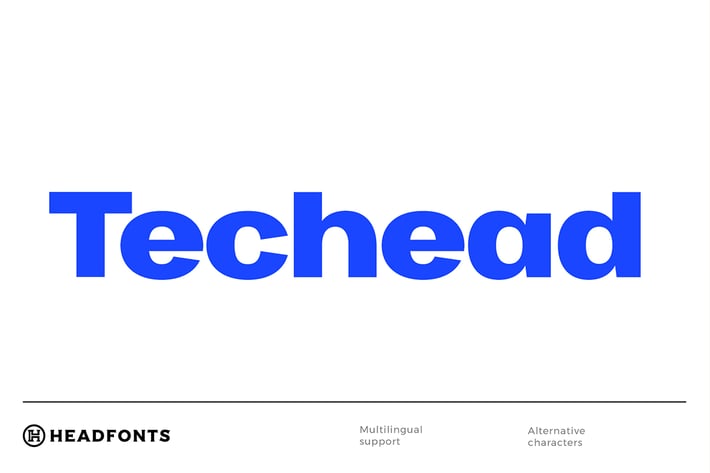
Techead Typeface|Font For Technology Startup
Introducing TECHEAD, an innovative sans serif font family. Techead is legible, objective and authoritative, specially designed for technology start-ups focused for developing sustainable, eco-friendly and innovative businesses. Techead has a neat, clean appearance with simple, smooth curves and a modern look. Despite its simplistic features Techead still has a strong personality and distinctive characteristics. With a high X height, large counters, high contrast between vertical and horizontal lines and narrow strokes, this typeface is powerful whether paired with a contrasting font or on its own. Techead typeface has five weights, from Thin to Black, uppercase, lowercase and also lower uppercase characters accompanied by alternative characters and numerals. Each font of Techead`s family has 386 glyphs and extensive Latin script language support.
Techead can be used regardless of its size and provides users with a wide range of options. Teachead`s Thin weight is suitable for contrasting texts, Teached Light is best used for texts and articles while Techead Regular, Bold and Black are more suitable for titles, logos or posters.
This distinct, versatile font family will be your helping hand when creating minimal and straightforward designs, proper for a developing brand.
- Techead Thin
- Techead Regular
- Techead Bold
- Techead Black
- Extensive Latin script language support
- Upper, lowercase and lower uppercase fonts